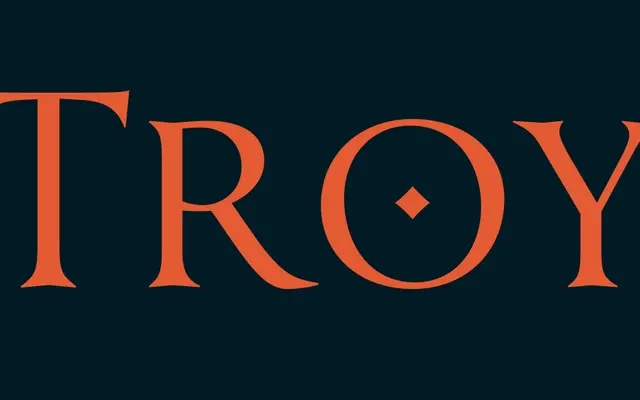
A single-weight serif from Indian Type Foundry, offered as a standalone Regular cut.
Troy is a serif typeface from Indian Type Foundry available in a single Regular weight. The page provides minimal classification or designer information, positioning it as a straightforward text typeface. At just one style, it suits projects where a clean, unadorned serif is needed without a full family.
The page offers limited classification detail, but the name and single-weight presentation suggest a traditional serif design; categorised as transitional serif based on available visual context from the ITF page.